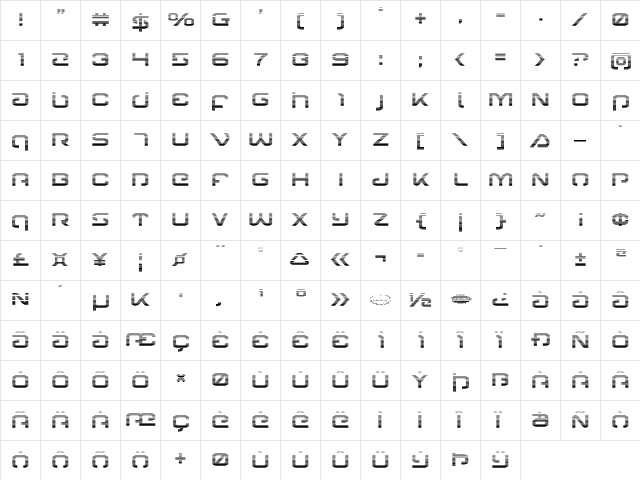
Gunrunner Gradient Regular
Design Context for Gunrunner Gradient Typeface
Gunrunner Gradient offers clean, dependable letterforms without strong stylistic allegiance, making it a practical choice for designers who need flexibility.